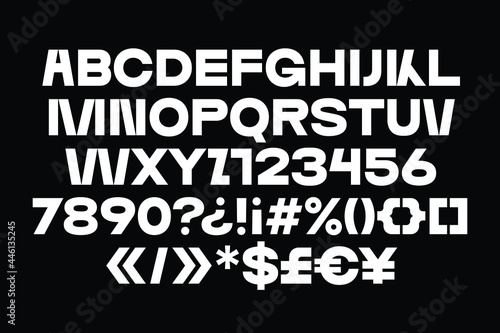
Cool, bold and powerful super modern unicase latin font, maximum visual and emotional impact, great for social media, headlines, large-format print, editorial, branding, posters, fashion design.